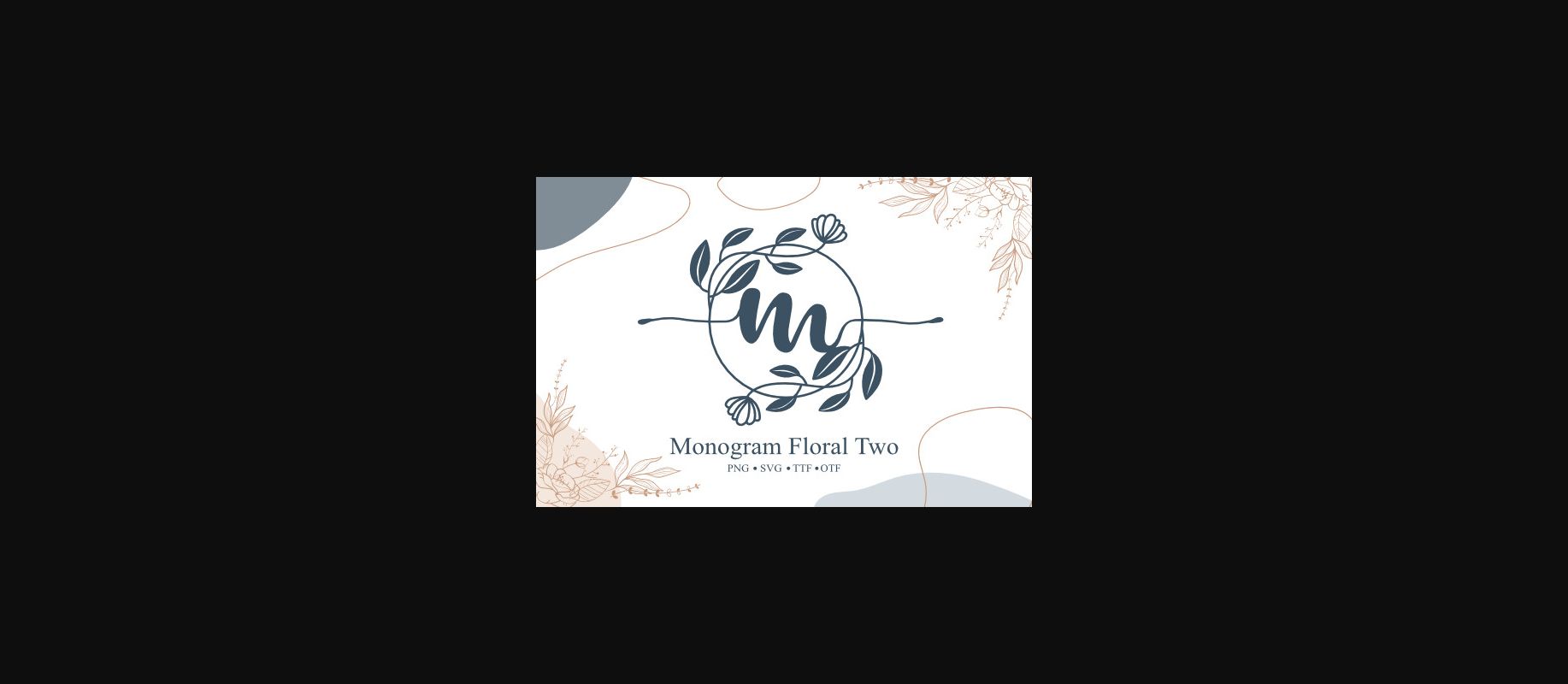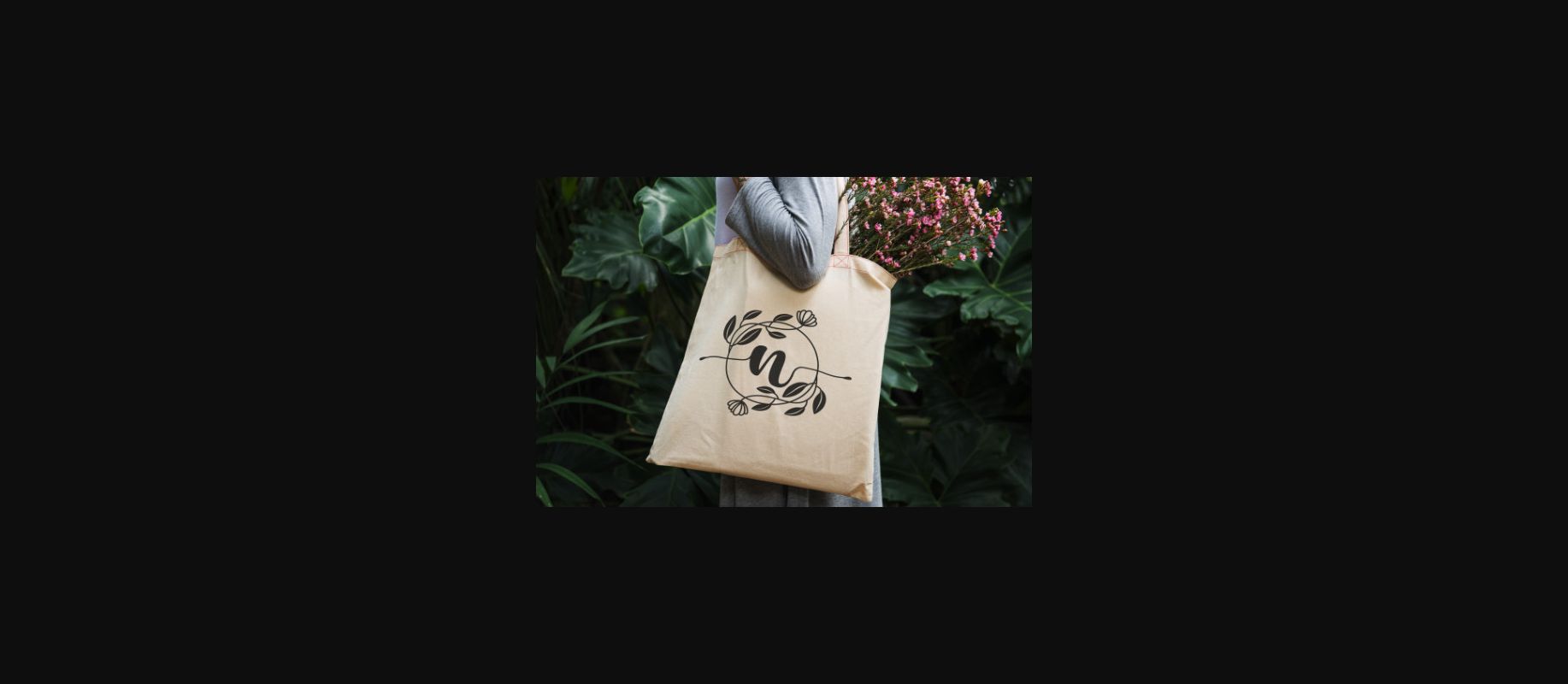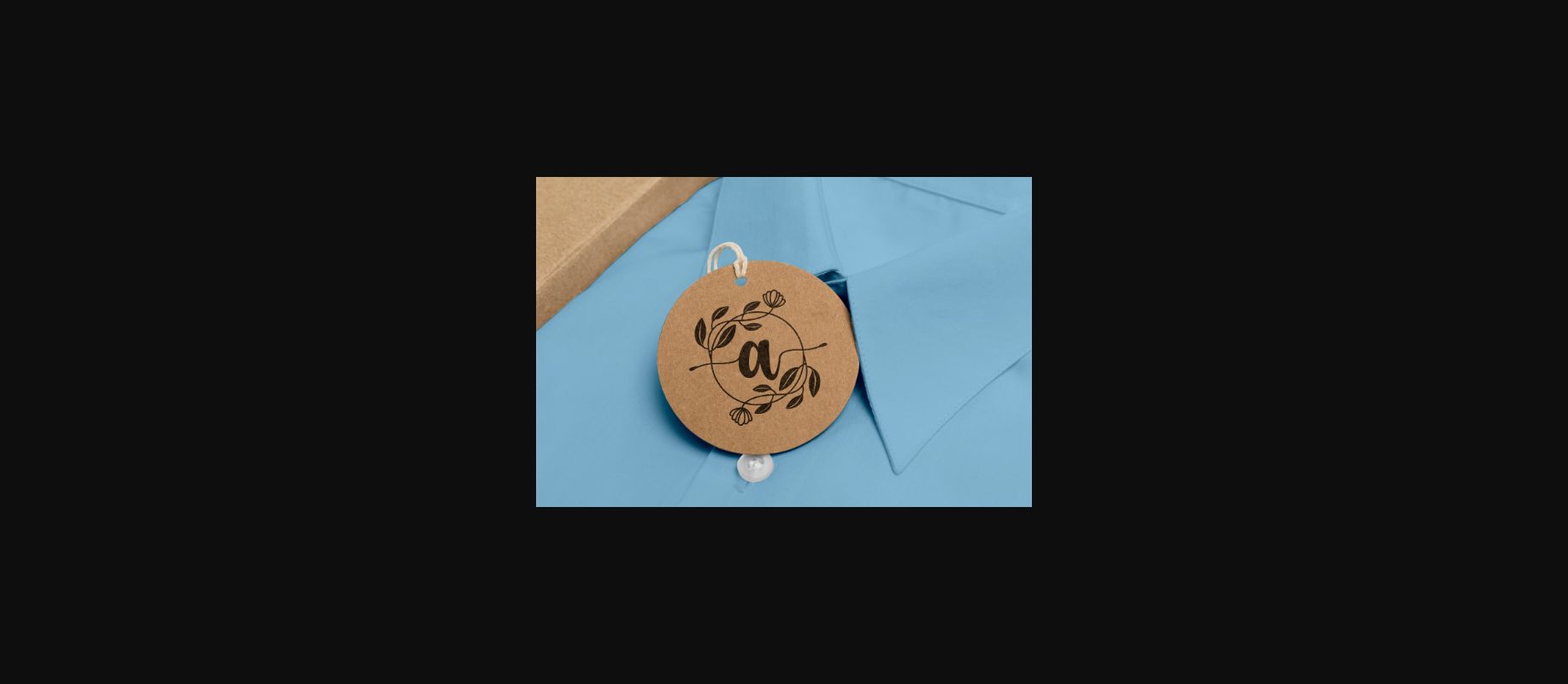
Monogram Floral Two Font
About Monogram Floral Two Font
Monogram Floral Two is a dainty and elegant decorative font, perfect for personalizing gifts, apparel designs, mugs, wedding invitations, or anything else.